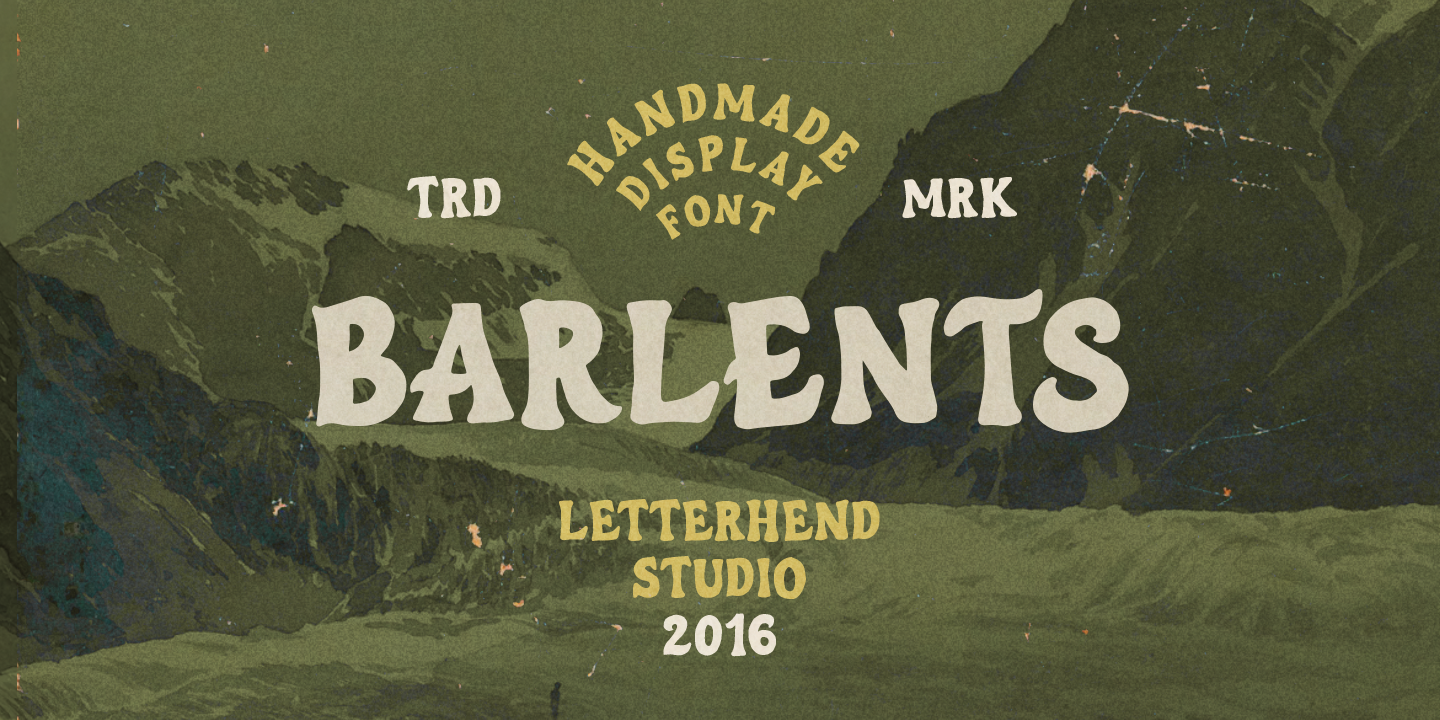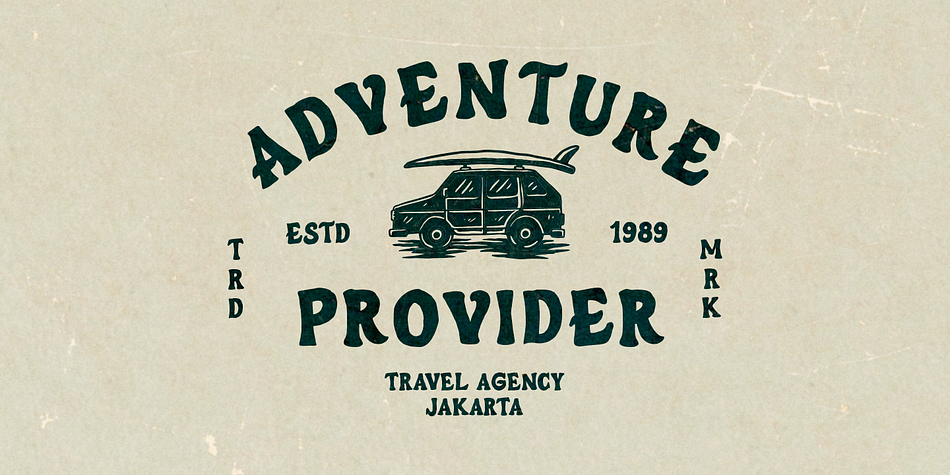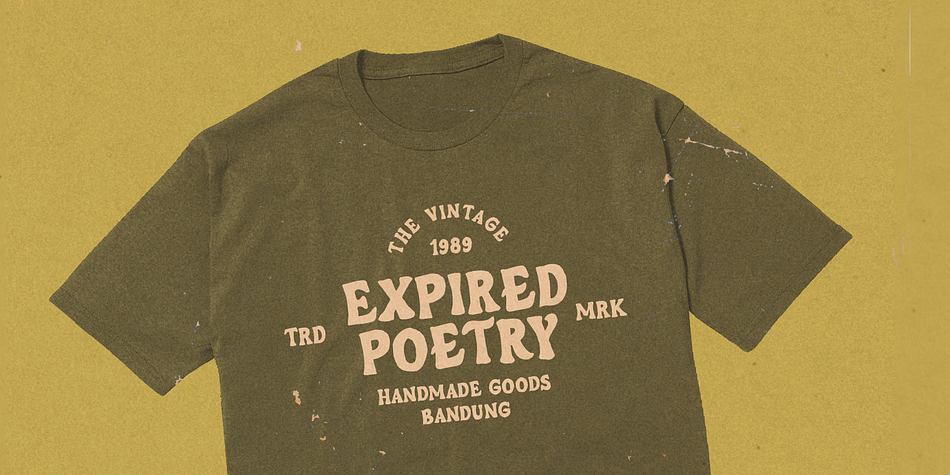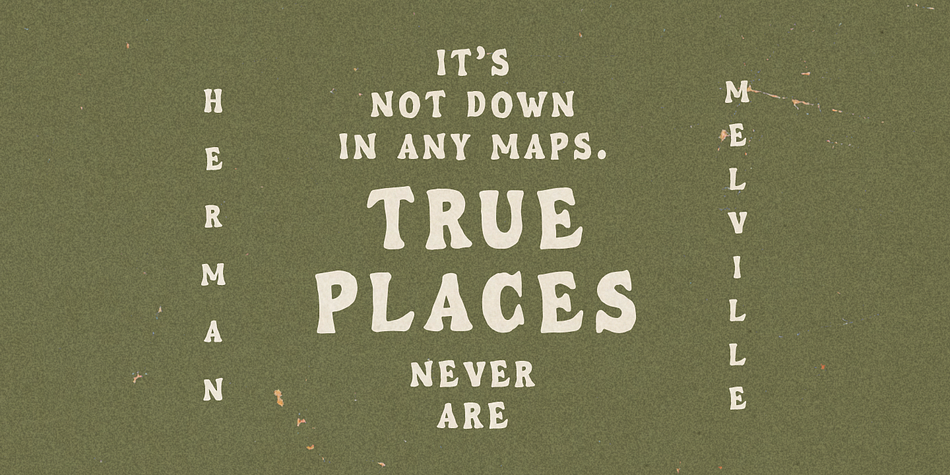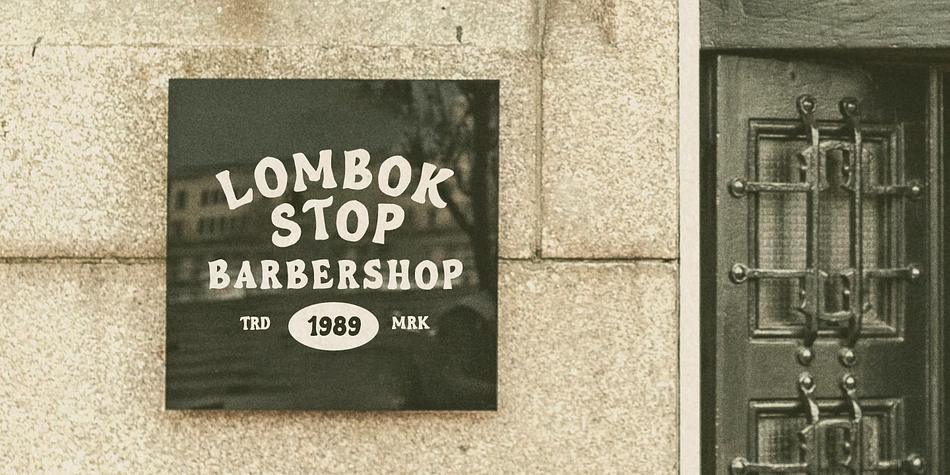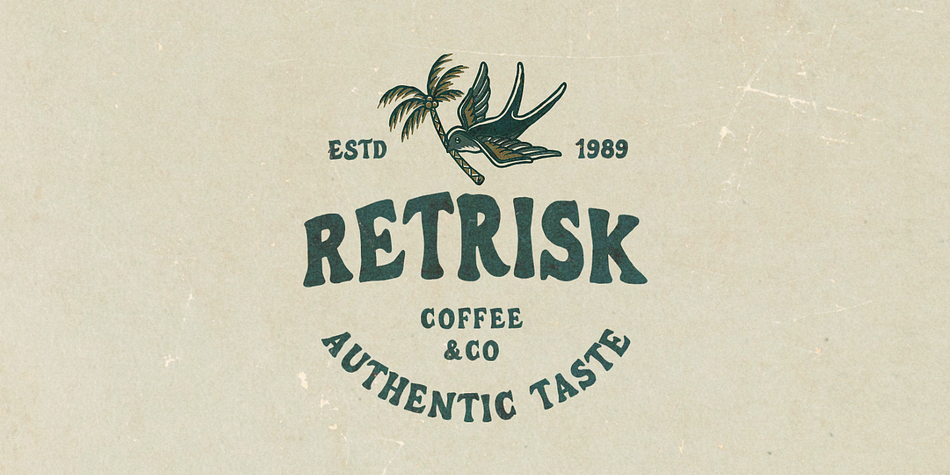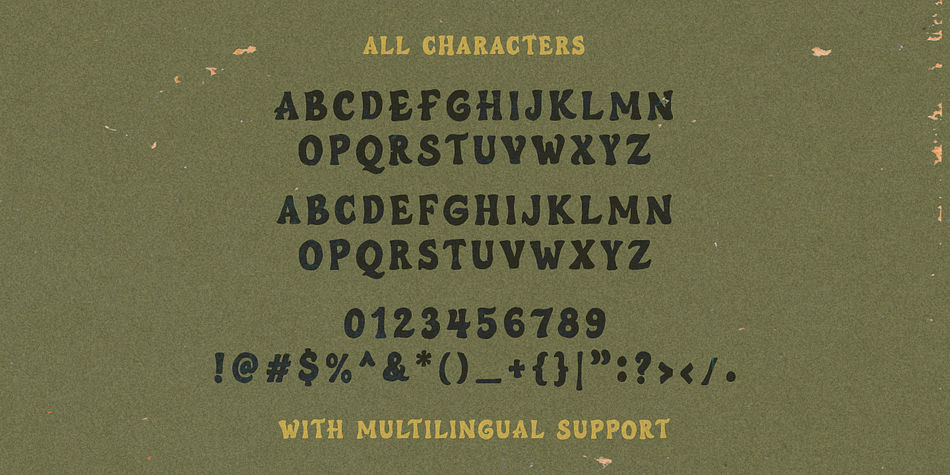
Barlents
Designed by Hendry Juanda, Barlents is a display font family published by Letterhend Studio.
Barlents is a handmade display font with vintage looks. This type of font perfectly made to be applied especially in logo, headline, signage and the other various formal forms such as invitations, labels, logos, magazines, books, greeting / wedding cards, packaging, fashion, make up, stationery, novels, labels or any type of advertising purpose.
—Uppercase & lowercase
- Alternates & Ligatures